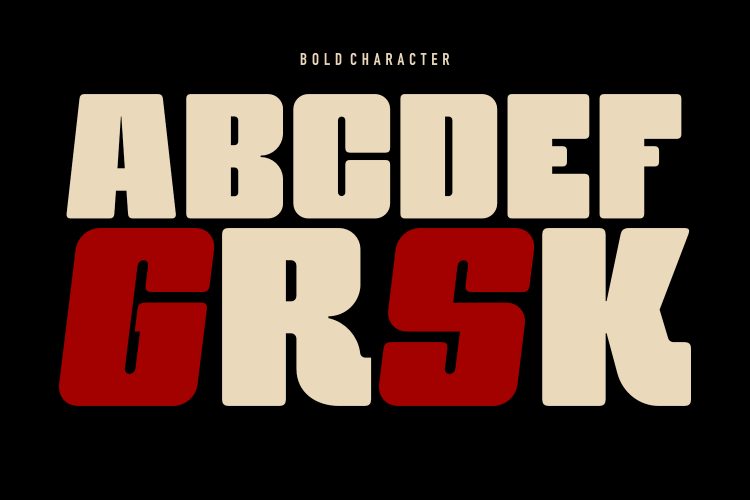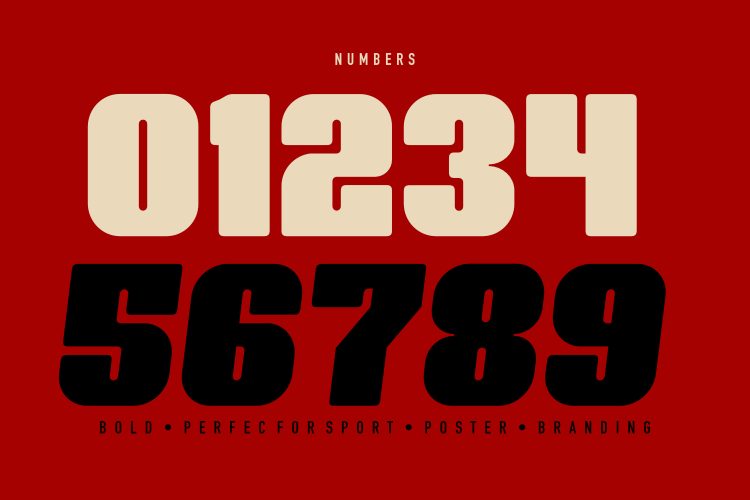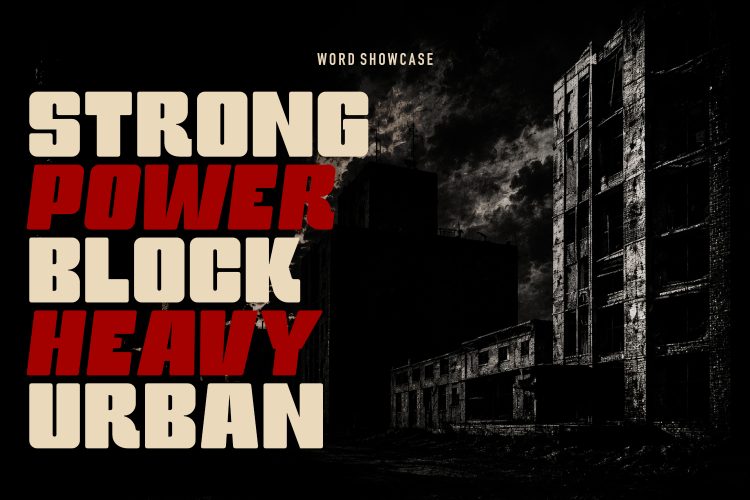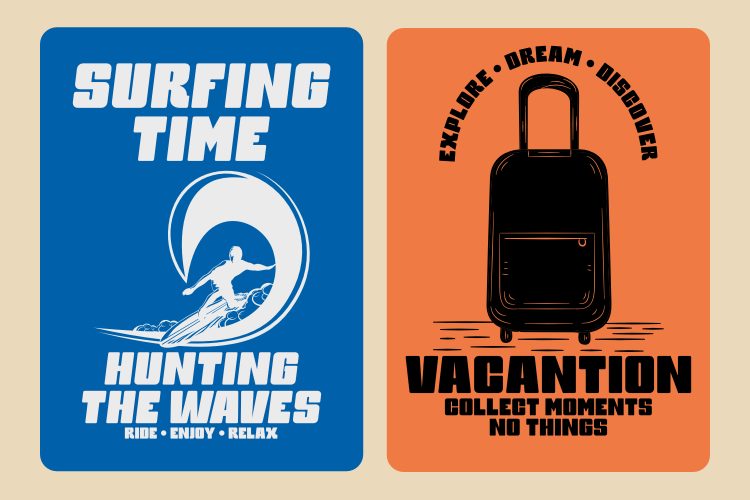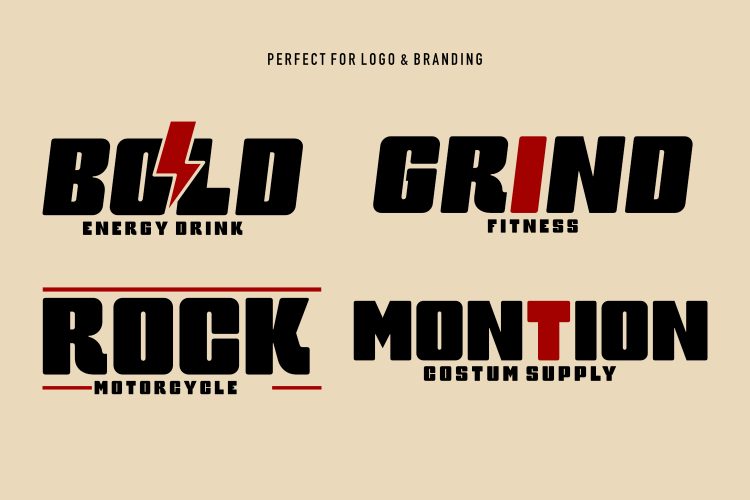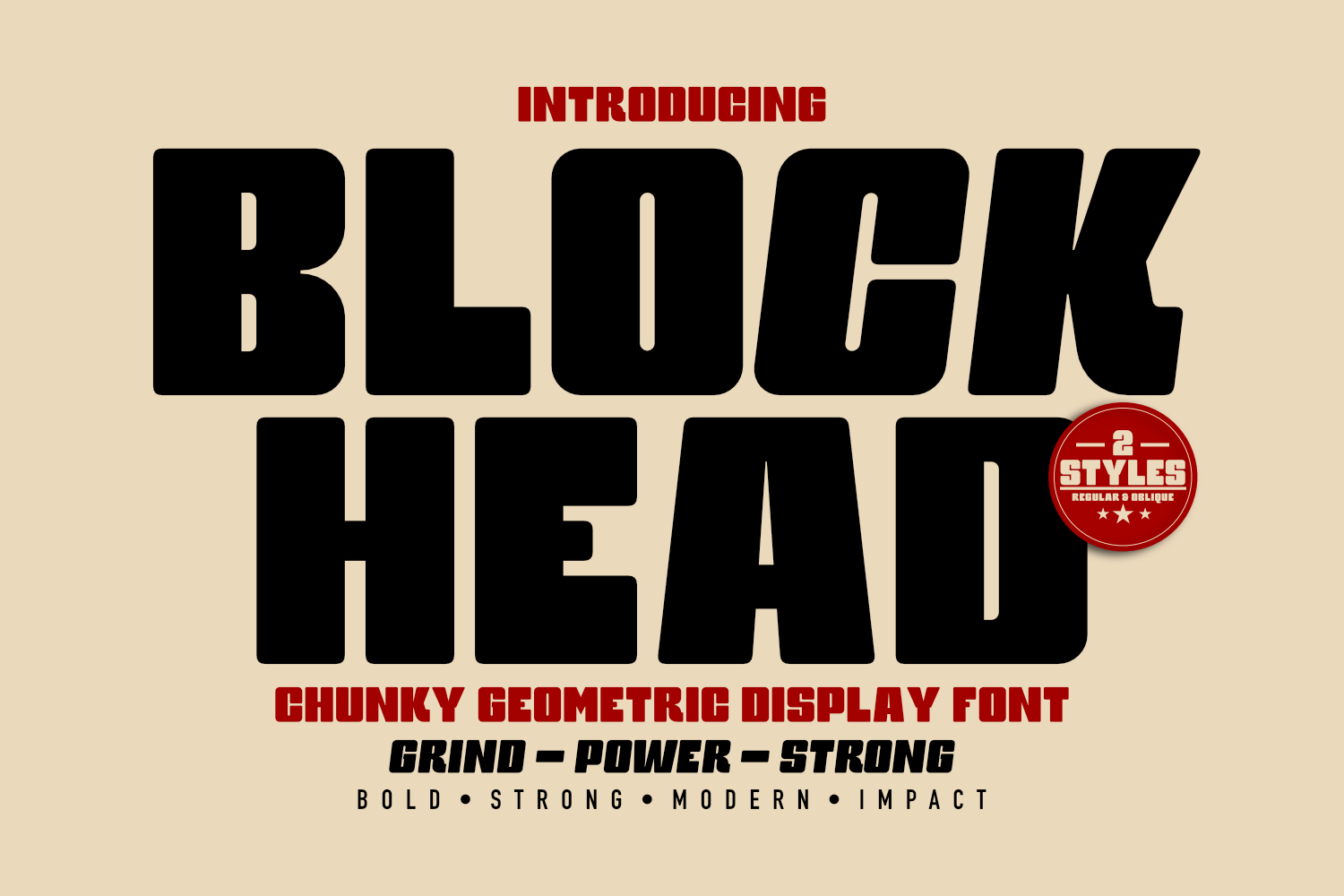
Block Head – Chunky Geometric Display Font
Block Head Chunky Geometric Display Font is a bold and distinctive typeface designed to create a strong visual presence in modern graphic design. Built around chunky geometric letterforms, strong condensed proportions, and a powerful display character, Block Head is made for typography that needs to stand out. Its compact structure gives headlines, logos, and branding compositions a confident and impactful appearance.
Designed by Ari Juanda, Block Head Chunky Geometric Display Font combines heavy proportions with clean geometric construction to create a contemporary display typeface with a strong visual identity. The letterforms are designed to feel solid and substantial while maintaining the clarity needed for large-scale typography. This combination makes Block Head suitable for designers looking for a typeface with a bold, modern, and confident character.
Block Head is available in two complementary styles: Regular and Oblique. The Regular style provides a stable and solid appearance, making it suitable for strong headlines, logos, and structured layouts. The Oblique style introduces a more dynamic sense of movement, giving designers another option for creating energetic typography and visual contrast.
The combination of these two styles allows Block Head to work across different types of compositions. Designers can use the Regular style when they want a grounded and powerful appearance, while the Oblique style can be used when a more active and directional feeling is needed. Using both styles together can also help create hierarchy and contrast within the same design.
With its chunky geometric construction and condensed proportions, Block Head is particularly effective when space is limited but the typography still needs to make an impact. The compact letterforms allow large words and headlines to occupy less horizontal space while maintaining a strong display presence. This makes the typeface useful for posters, promotional graphics, branding systems, and other designs where typography plays an important visual role.
Ideal For
Logo Design & Brand Identity
Block Head Chunky Geometric Display Font is suitable for logo design and brand identity projects that require bold and recognizable typography. Its chunky geometric appearance gives wordmarks and brand names a confident visual character.
Sports & Athletic Branding
The strong structure and condensed proportions make Block Head suitable for sports-related graphics, athletic branding, team visuals, and promotional designs where typography needs to communicate energy and strength.
Streetwear & Fashion
Block Head works well with modern streetwear graphics, fashion campaigns, apparel designs, and promotional artwork. Its heavy display character can create a distinctive typographic statement on visual compositions.
Gaming & Esports
For gaming and esports visuals, Block Head provides a bold typographic presence that can work effectively in titles, promotional graphics, team branding, and other high-impact designs.
Posters & Promotional Graphics
The condensed and chunky structure makes Block Head well suited for large headlines, event promotions, advertising graphics, and posters where typography needs to immediately attract attention.
Packaging & Marketing Materials
Block Head can also be used for packaging designs, product graphics, campaigns, and marketing materials that require a strong and contemporary typographic style.
Features
- Chunky geometric construction
- Strong condensed proportions
- Two styles: Regular & Oblique
- Bold display character
- Clean geometric letterforms
- Compact and impactful structure
- Modern and versatile aesthetic
Why You’ll Love Block Head Chunky Geometric Display Font
Bold Visual Presence
Block Head is designed for typography that needs to be noticed. Its chunky construction and strong proportions give words a substantial appearance that works especially well at display sizes.
Regular & Oblique Styles
Having both Regular and Oblique styles gives you greater flexibility when building a composition. Regular provides a stable foundation, while Oblique adds movement and visual energy.
Condensed Structure
The condensed proportions allow Block Head to create large, impactful typography without requiring excessive horizontal space. This makes it practical for headlines and designs with limited room.
Geometric Character
Its geometric construction gives Block Head a clean and contemporary visual personality. The combination of chunky forms and geometric structure creates a distinctive look that can adapt to different creative directions.
Made for High-Impact Typography
From logos and sports graphics to gaming visuals, posters, fashion campaigns, and branding, Block Head is built for projects where typography needs to become an important part of the overall design.
Designed by Ari Juanda in 2026.